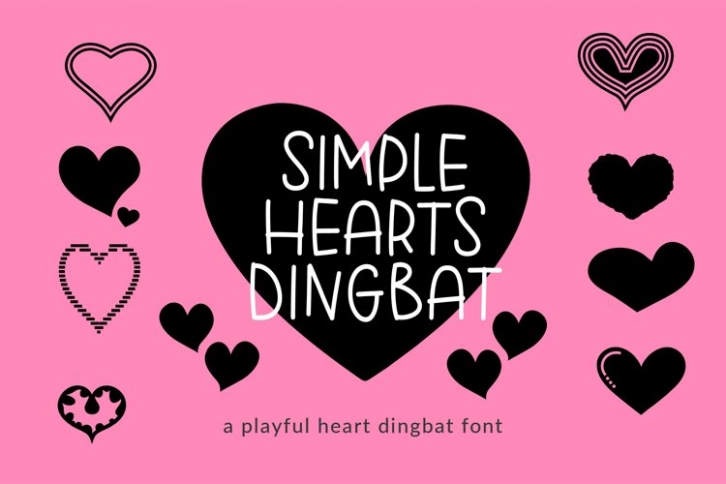
Simple Hearts Dingbat, a valentines dingbat is a beautiful font that was designed by plusstore. It's a great choice for designers and creatives who need such a font. It was released on November 24, 2021 and the file size is 1.54 MB. Simple Hearts Dingbat, a valentines dingbat may give a more youthful, expressive and casual look to your project. It is a very beautiful, refined, elegant, and high-quality font.